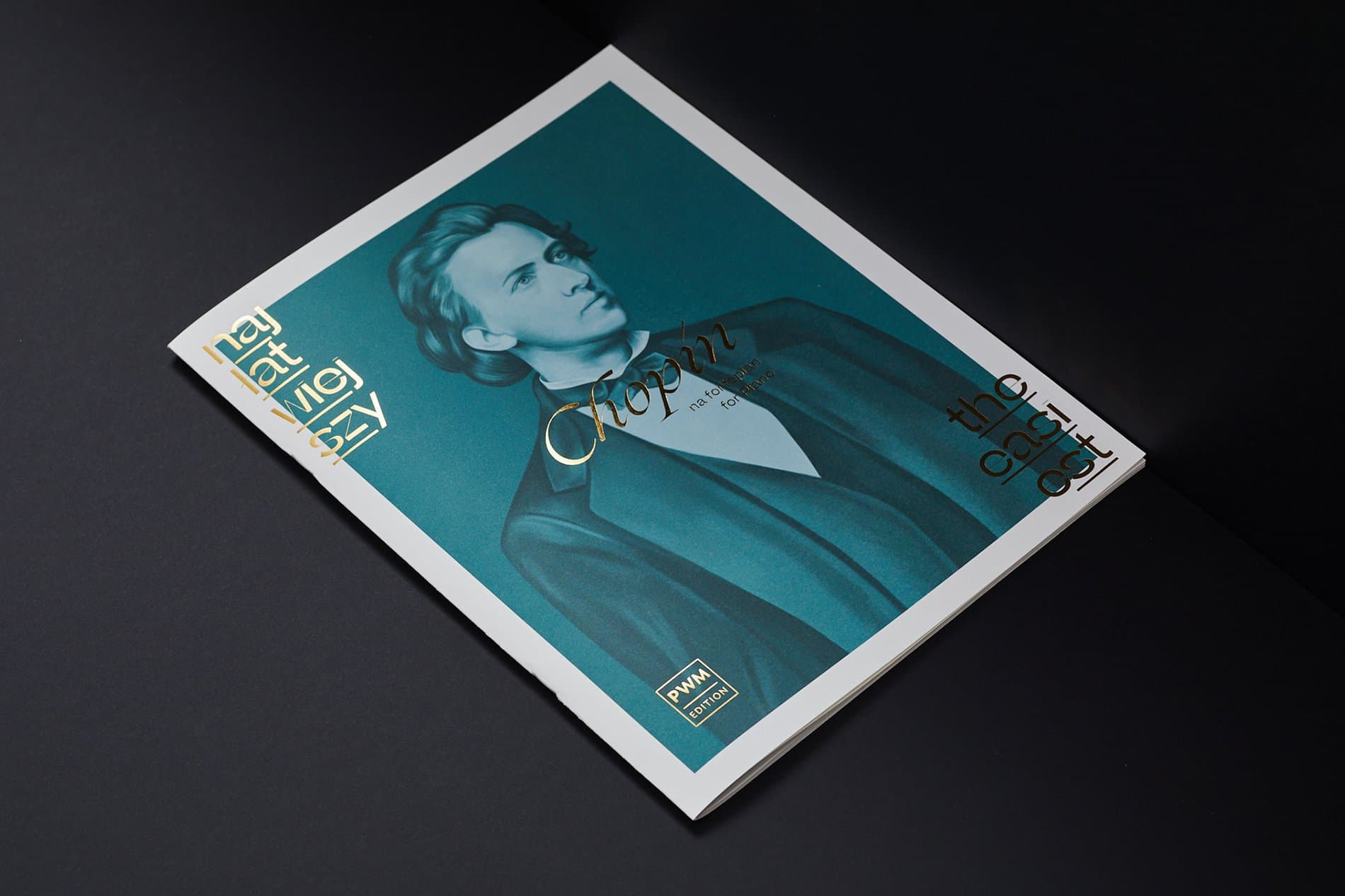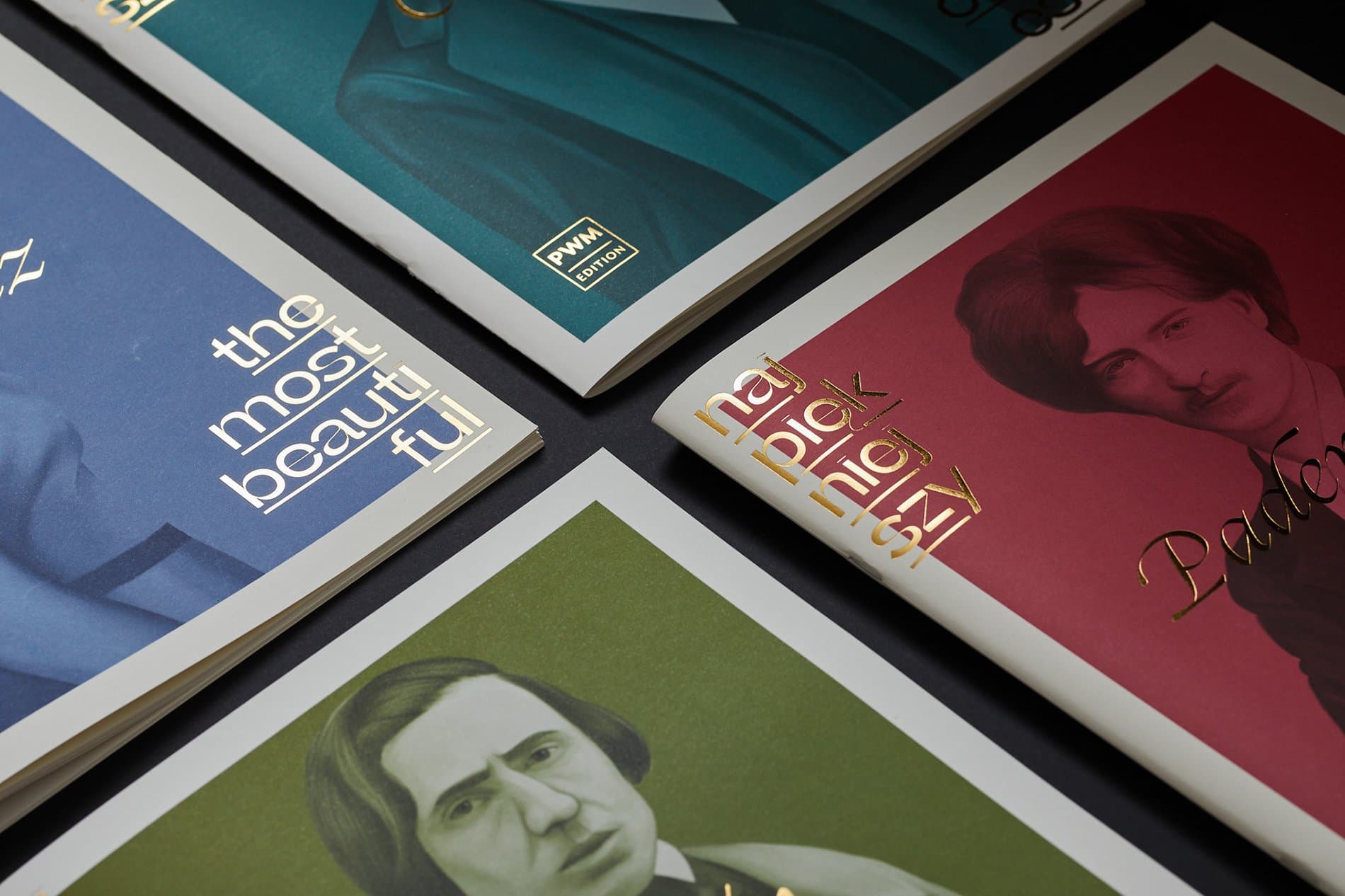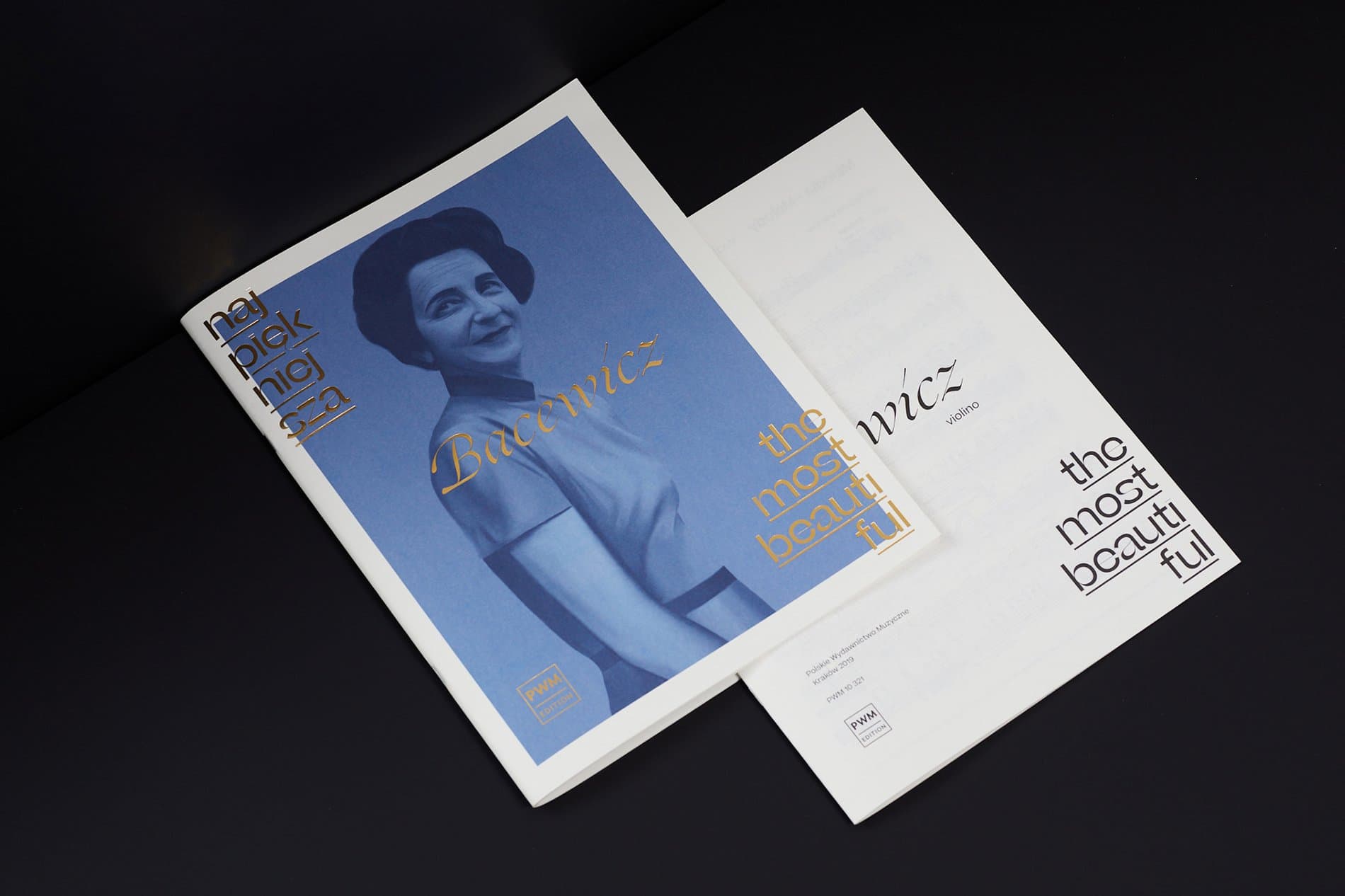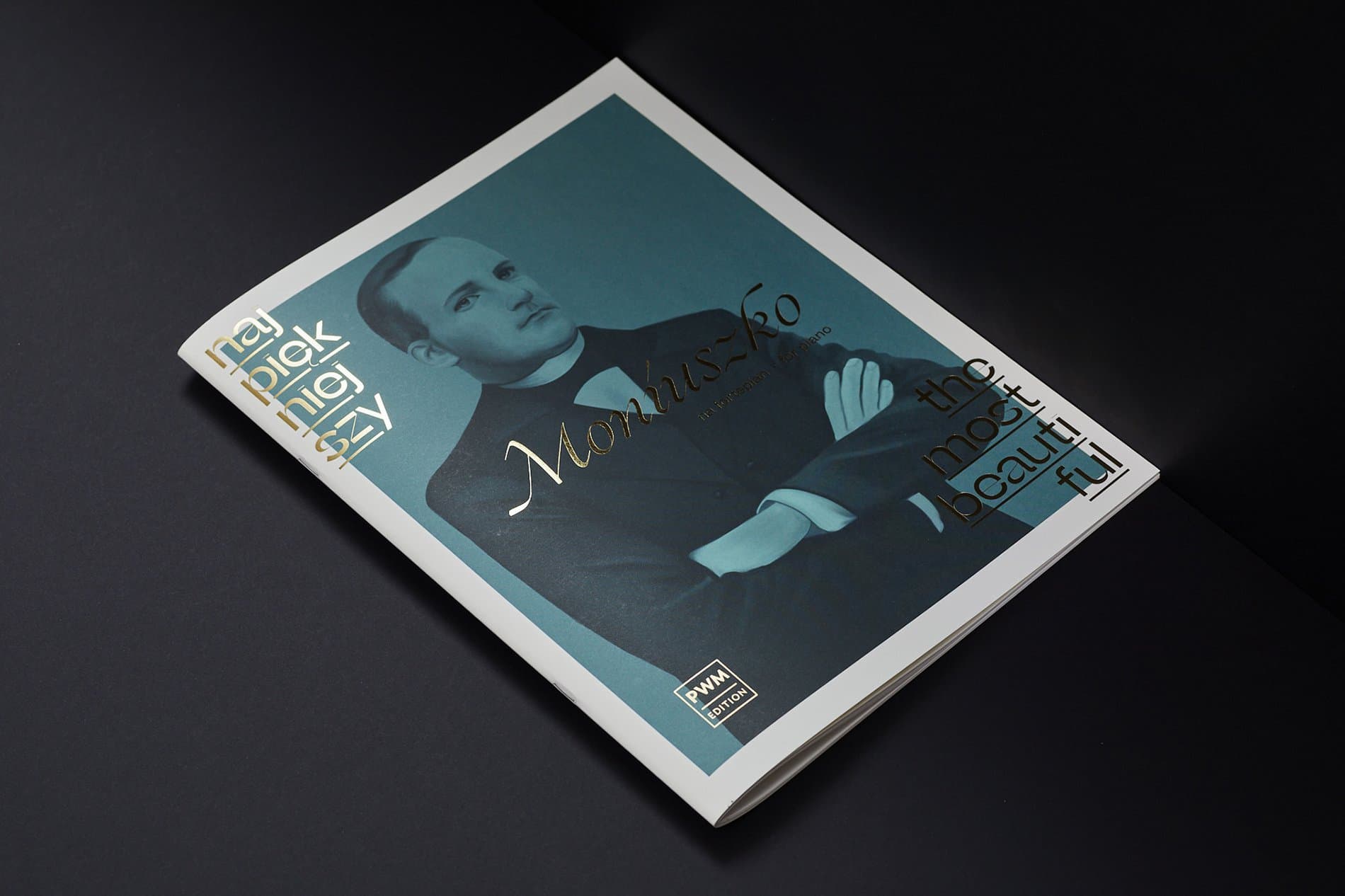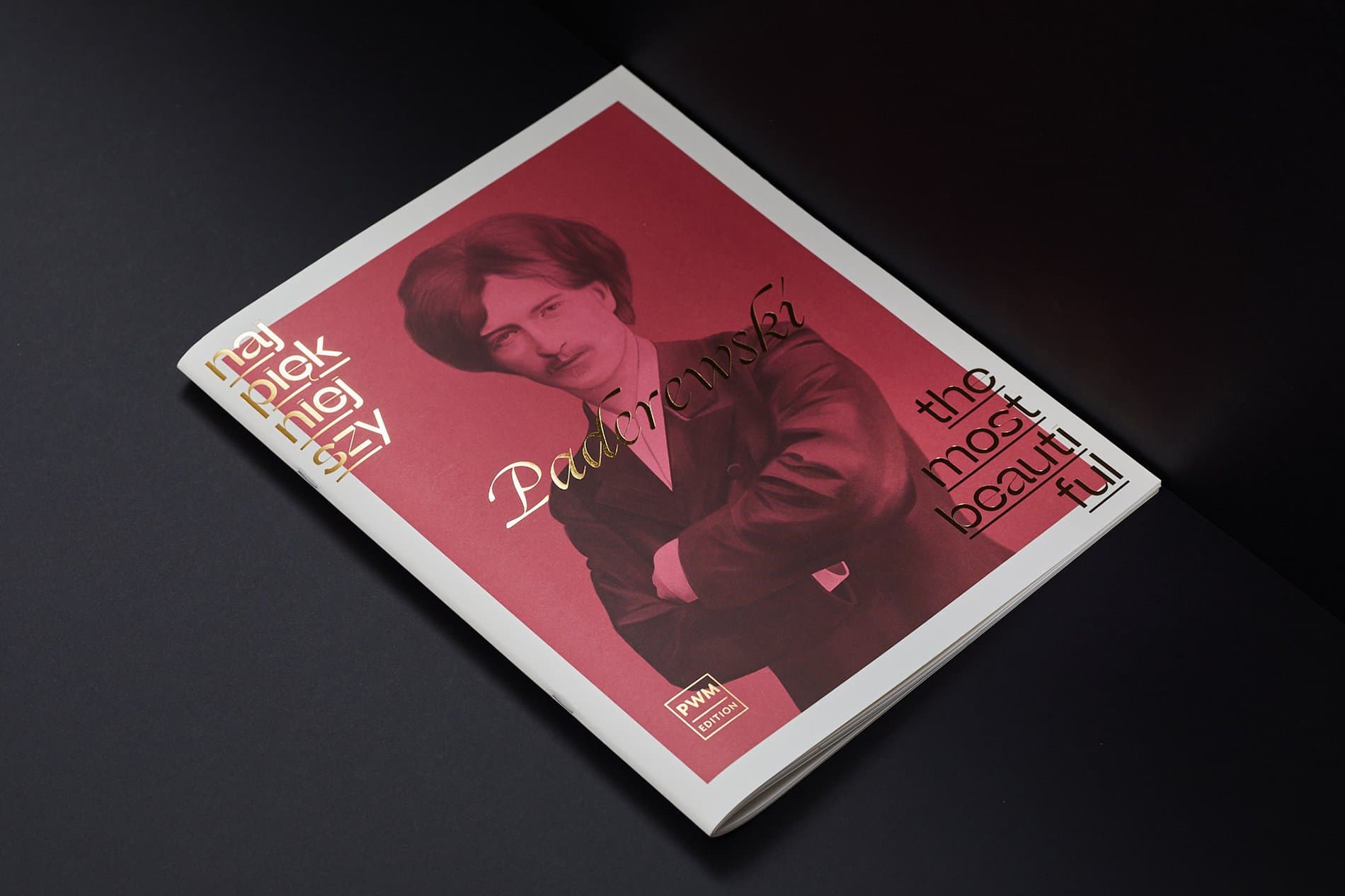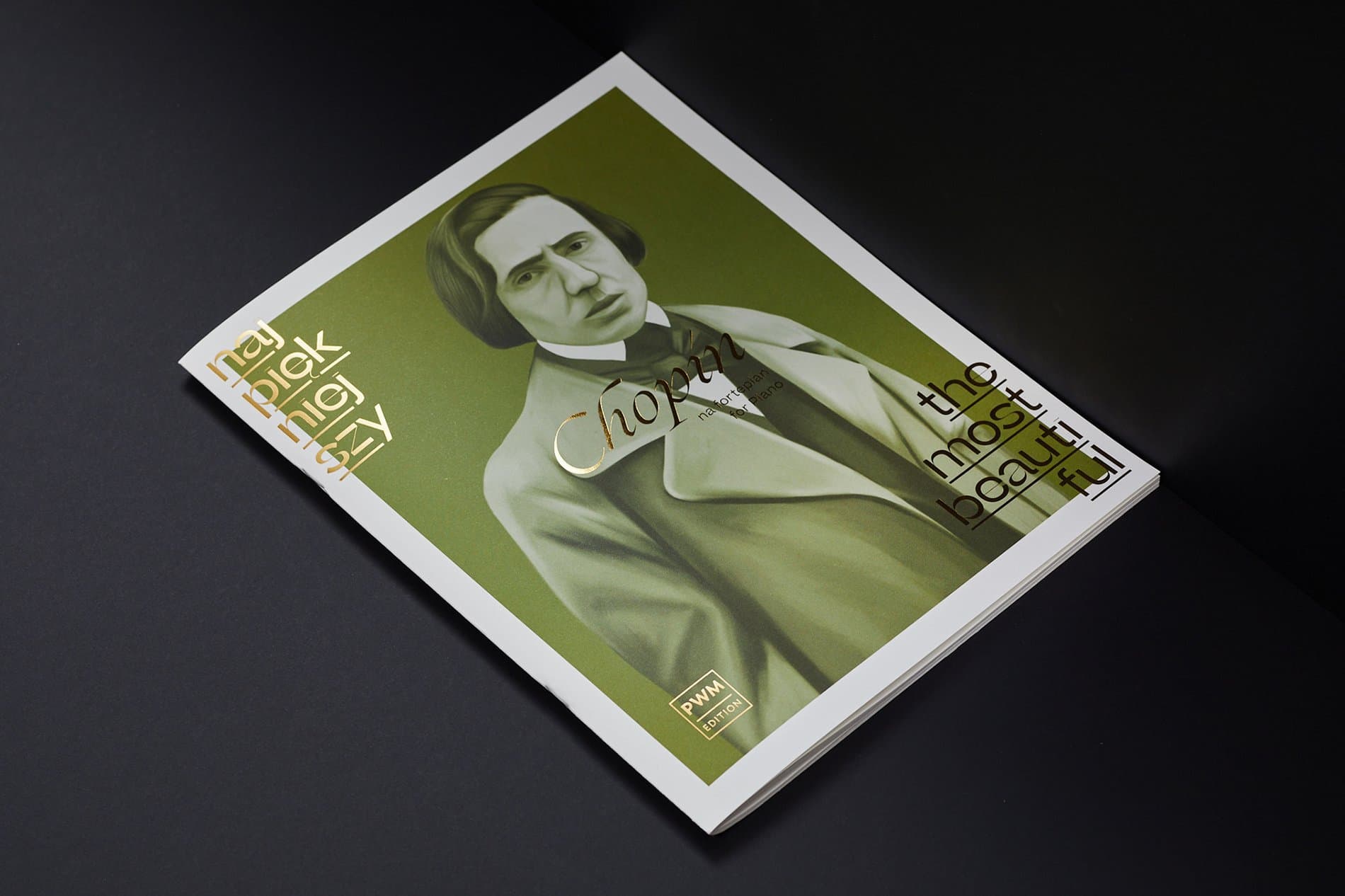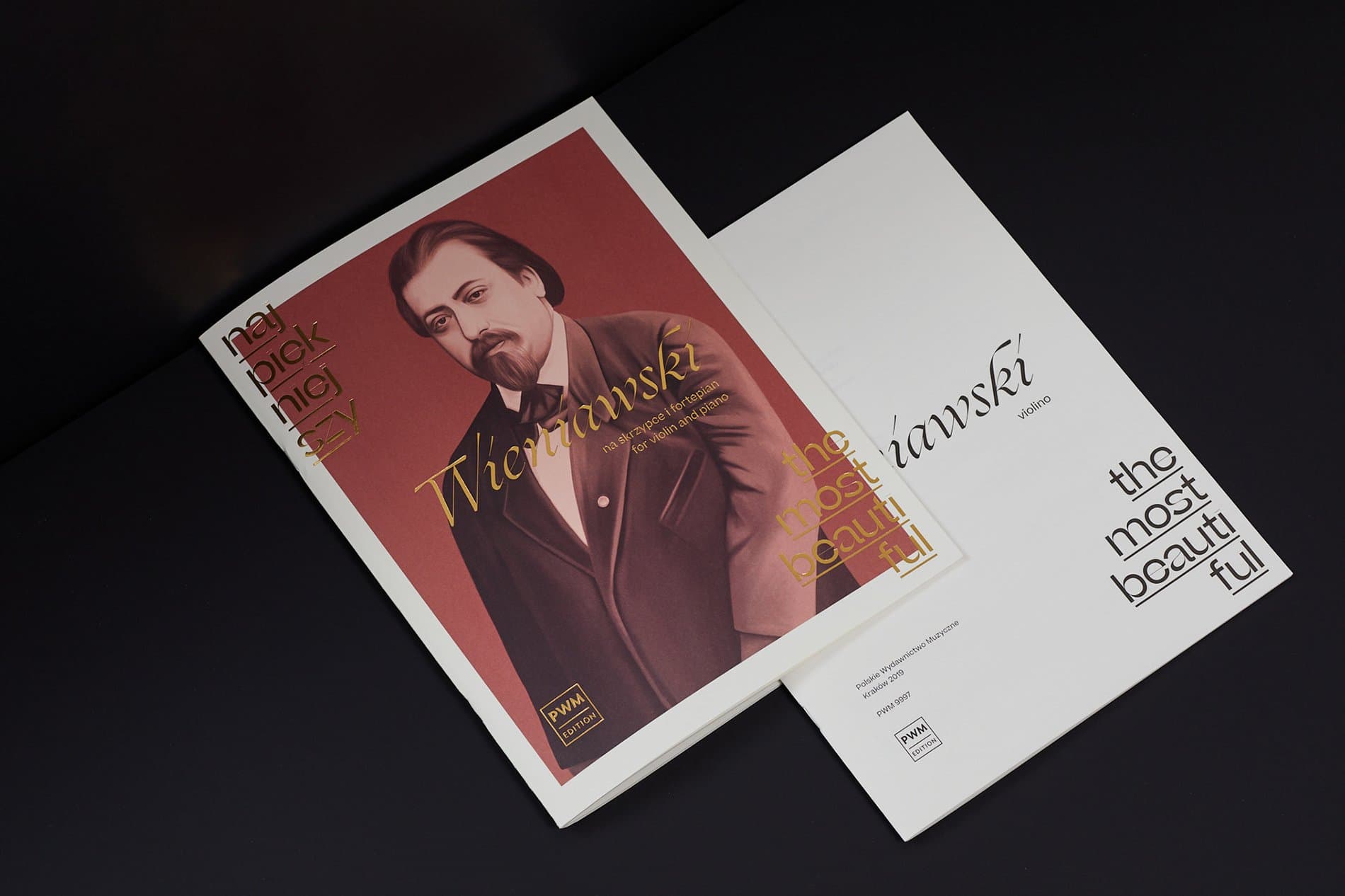
The Polish Music Publishing House was founded in 1945 in Kraków, Poland. With a long and vibrant history of printing music, the house had been the only music publisher in Poland for several years. For a new project, Marcin Hernas designed booklet scores for the most beautiful compositions written by great Polish composers including Fryderyk Chopin, Ignacy Jan Paderewski, Henryk Wieniawski, Stanisław Moniuszko, and Grażyna Bacewicz. The typography brings together Beatrice Display, Beatrice, and Ogg.
The typography is stamped with gold foil, accenting Beatrice Display’s internal contrast and Ogg’s italic strokes. We got to hear from Marcin on why he paired Beatrice and Ogg to achieve both a classical and modern look that could create balance and contrast with illustrated monochrome portraits.
“Beatrice Display’s high contrast resonated with the delicate appearance of the whole design as a typeface that is both bold and legible. Ogg on the other hand conveyed a historical tone. These are composers from the 19th and 20th century, so a classical, elegant, yet fresh looking typeface was a must — especially because it was used for their names and typeset right in the center of the cover. Ogg has this uncommon charm which fits with a contemporary approach to the classics of Polish music,” he said. “Even if these typefaces seem to come from different worlds, they work perfectly together — that is probably the reason why this combination works so well in themes such as classical music.”